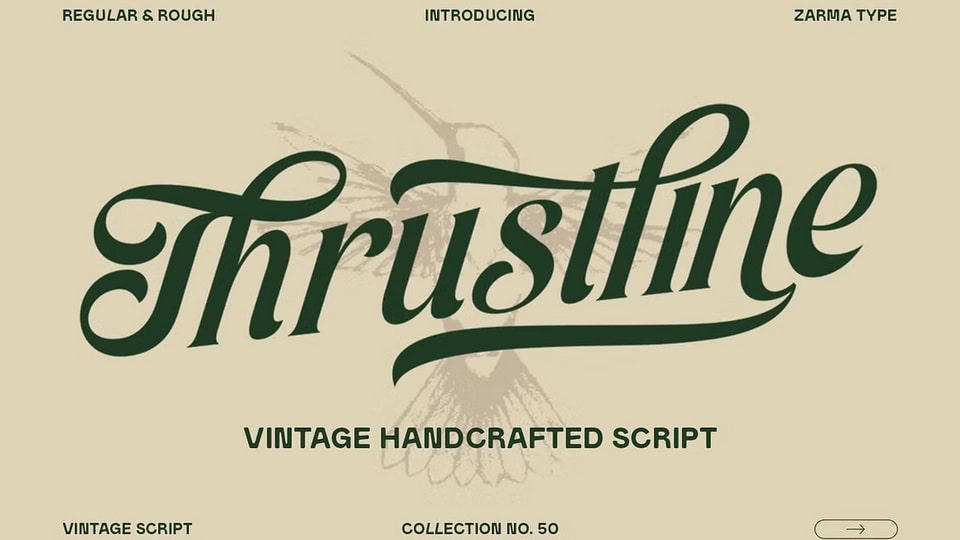
Download Thrustline font, a vintage script typeface a bold and stylish retro typeface inspired by the golden era of sign painting and handcrafted lettering.
Designer: Zarma Type Foundry